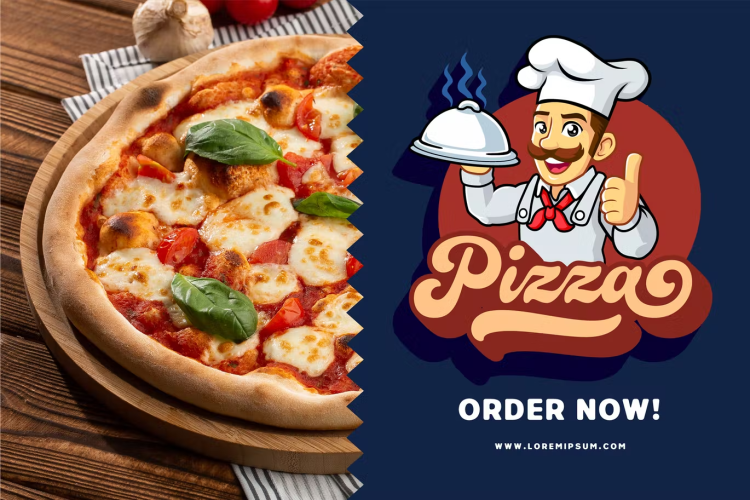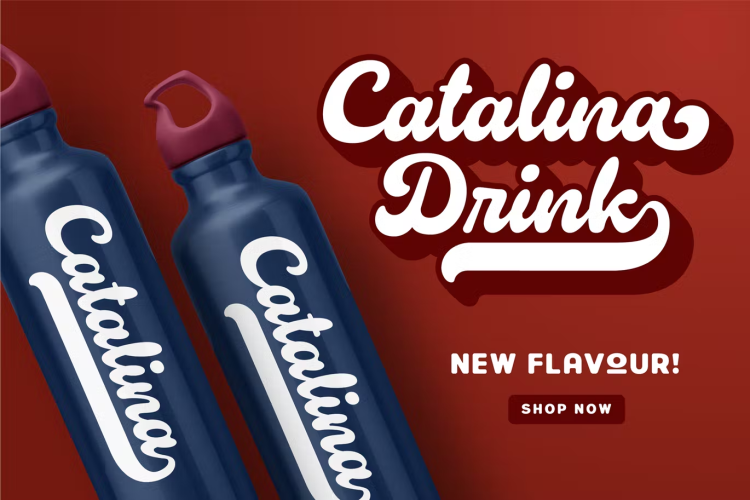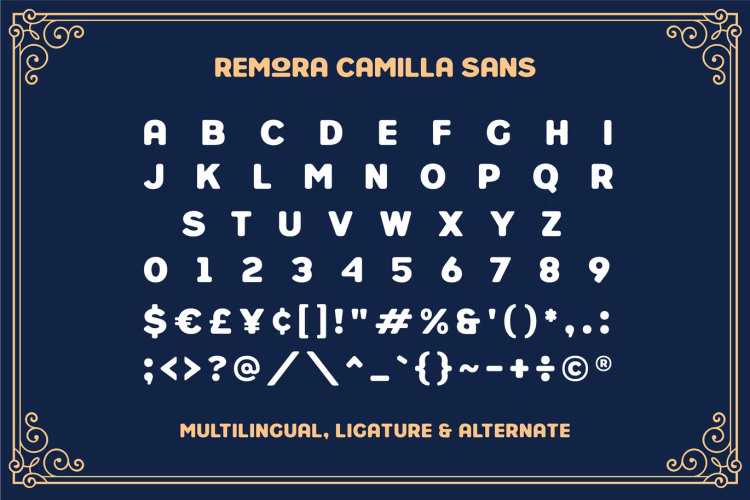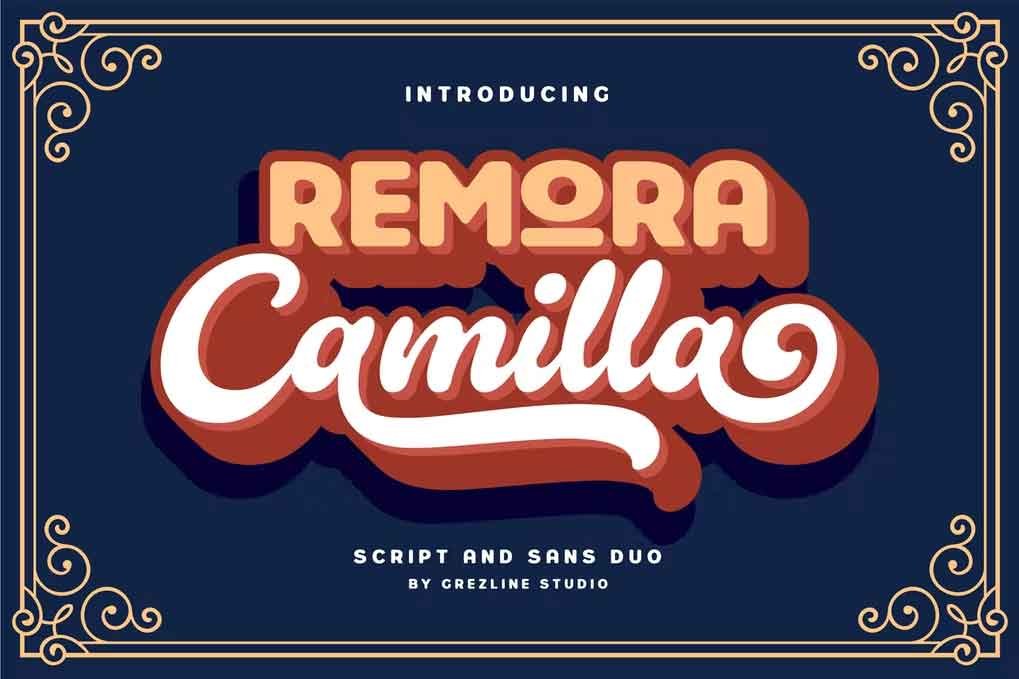
Remora Camilla Display Font
Remora Camilla is a display script and unique sans font pair with a charming retro personality. They also have strong and bold characteristics. This font will be an appealing asset to your fonts’ library, as they have the potential to enhance any design project. Remora Camilla is perfect for headings, covers, posters, logos, quotes, product packaging, merchandise, social media and much more! Combine them to make your creation more spectacular!
Remora Camilla Display Font is a Sans Serif Fonts font that brings a professional and versatile look to your projects. Remora Camilla is a display script and unique sans font pair with a charming retro personality.